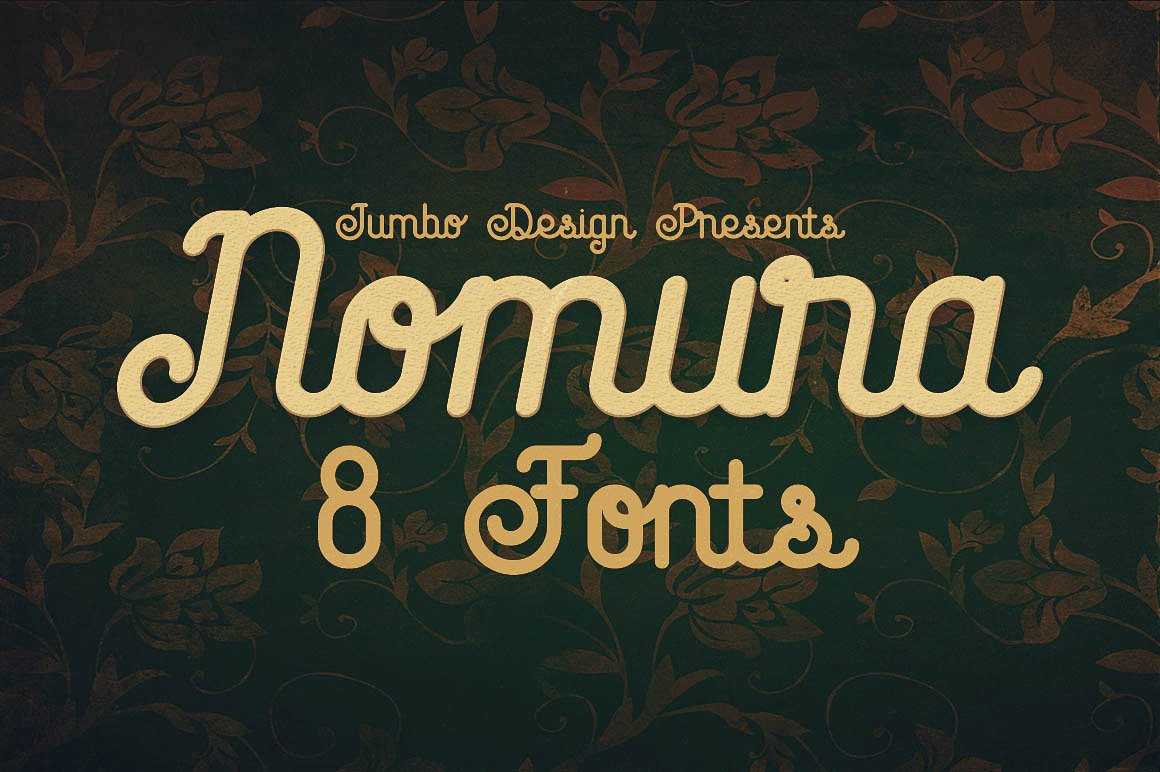
Nomura – Vintage Style Font
Unique retro or vintage script style custom font with 8styles: regular and grunge, italic and italic grunge, regular1 and regular1 grunge, italic1 and italic1 grunge
| Classification: | Handwritten Fonts, Script Fonts |